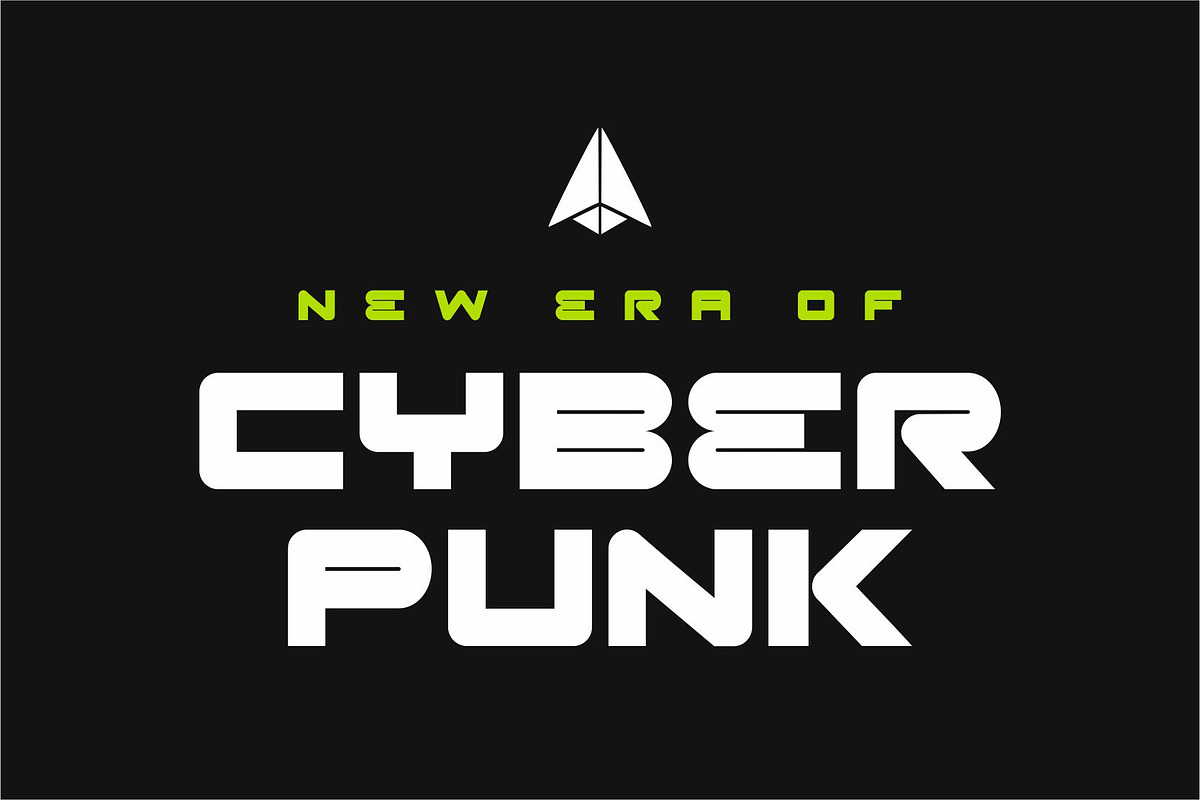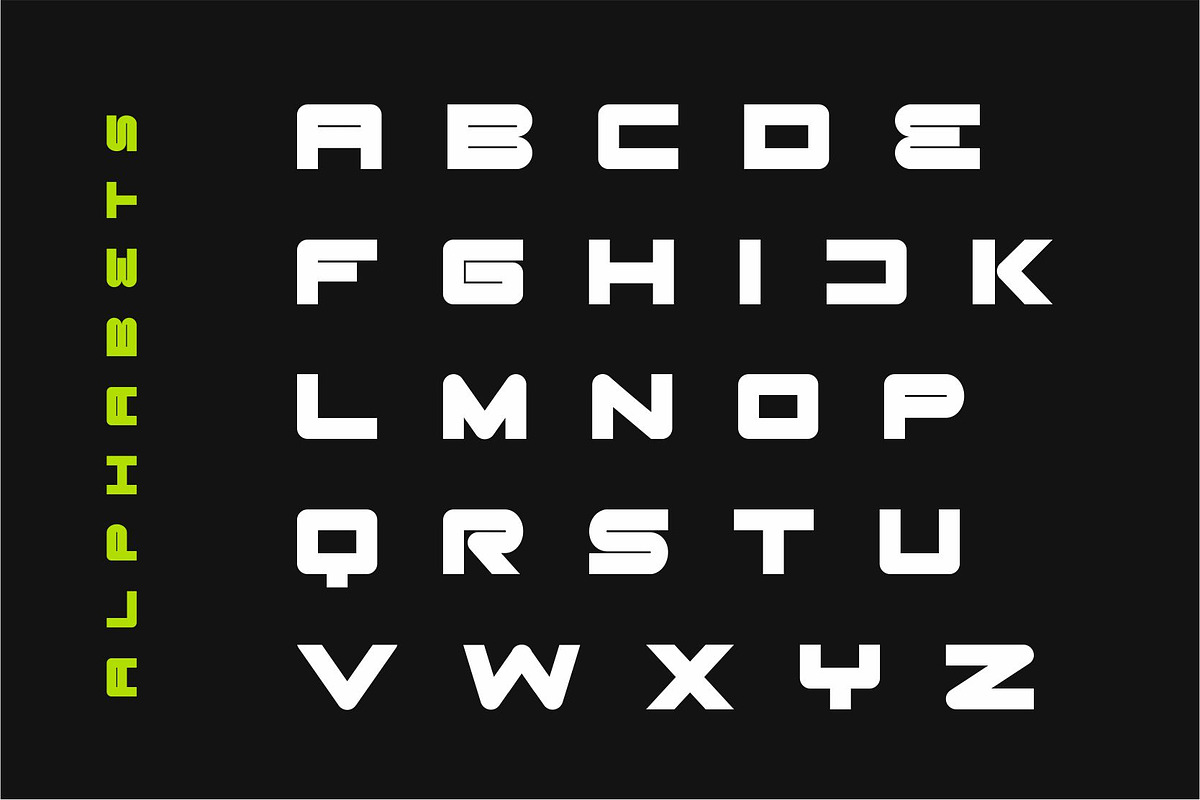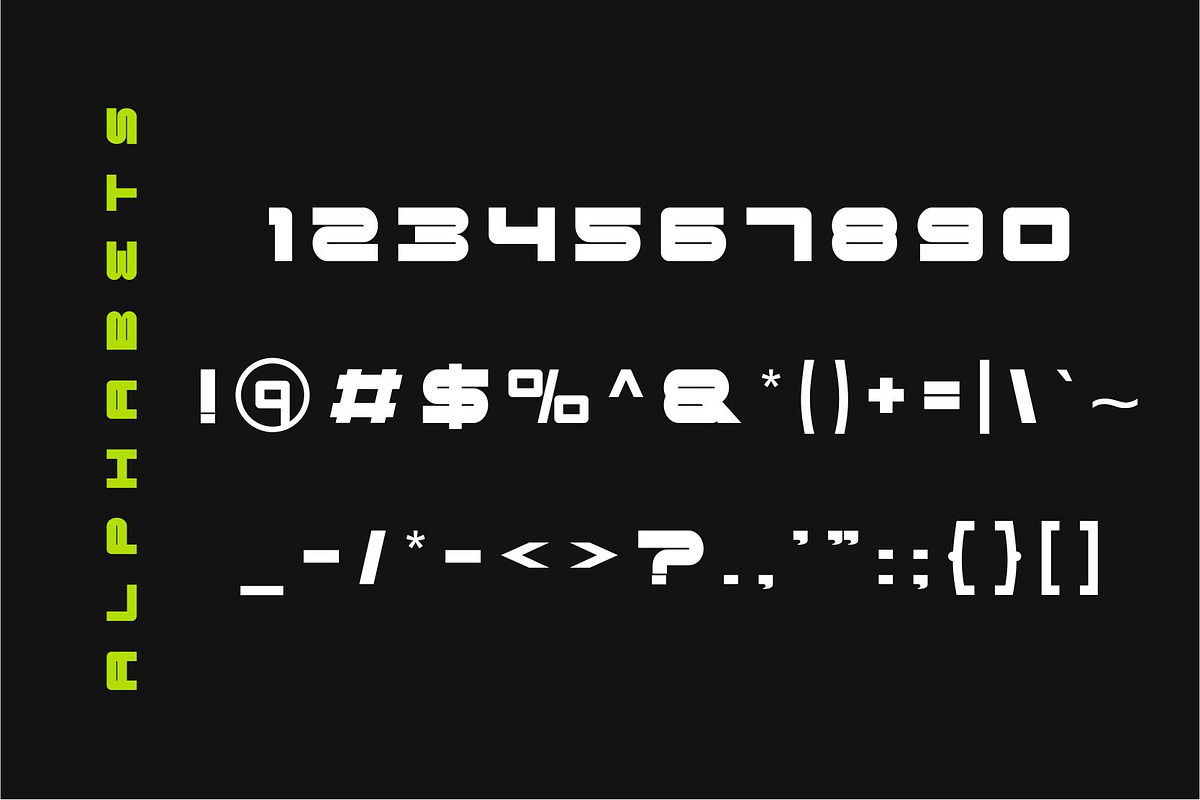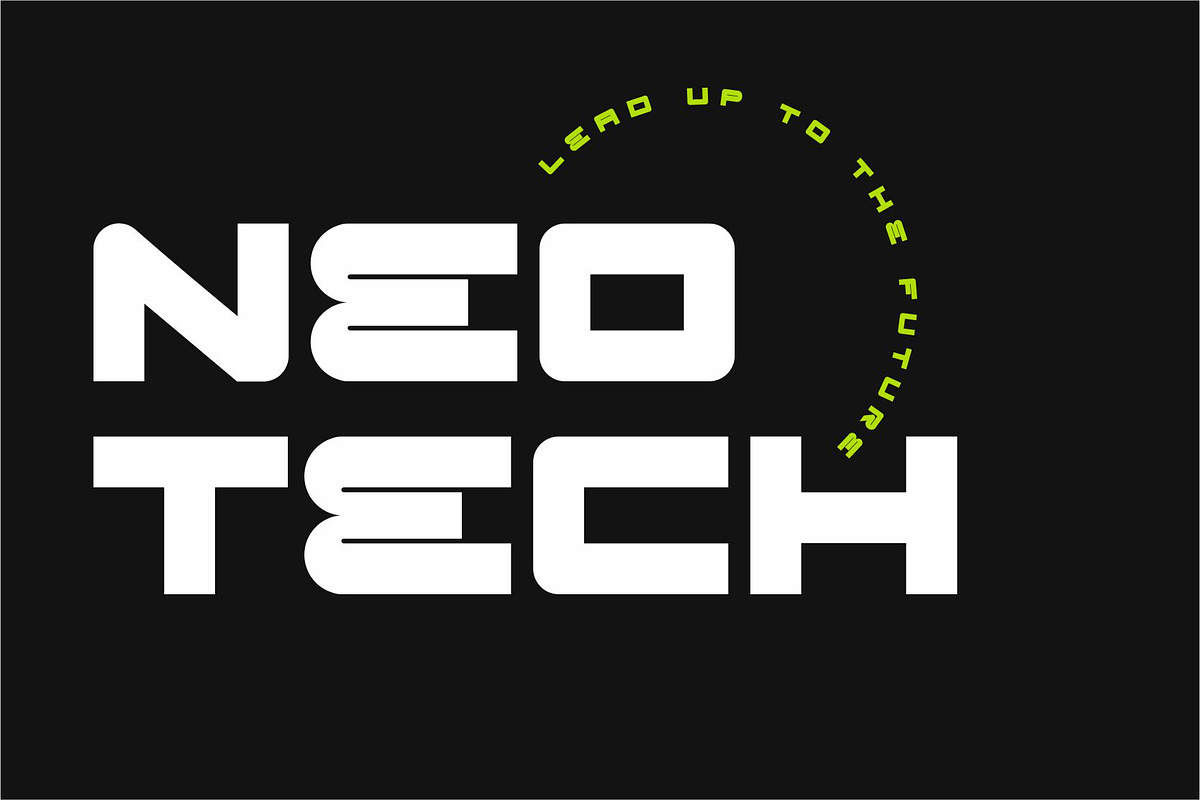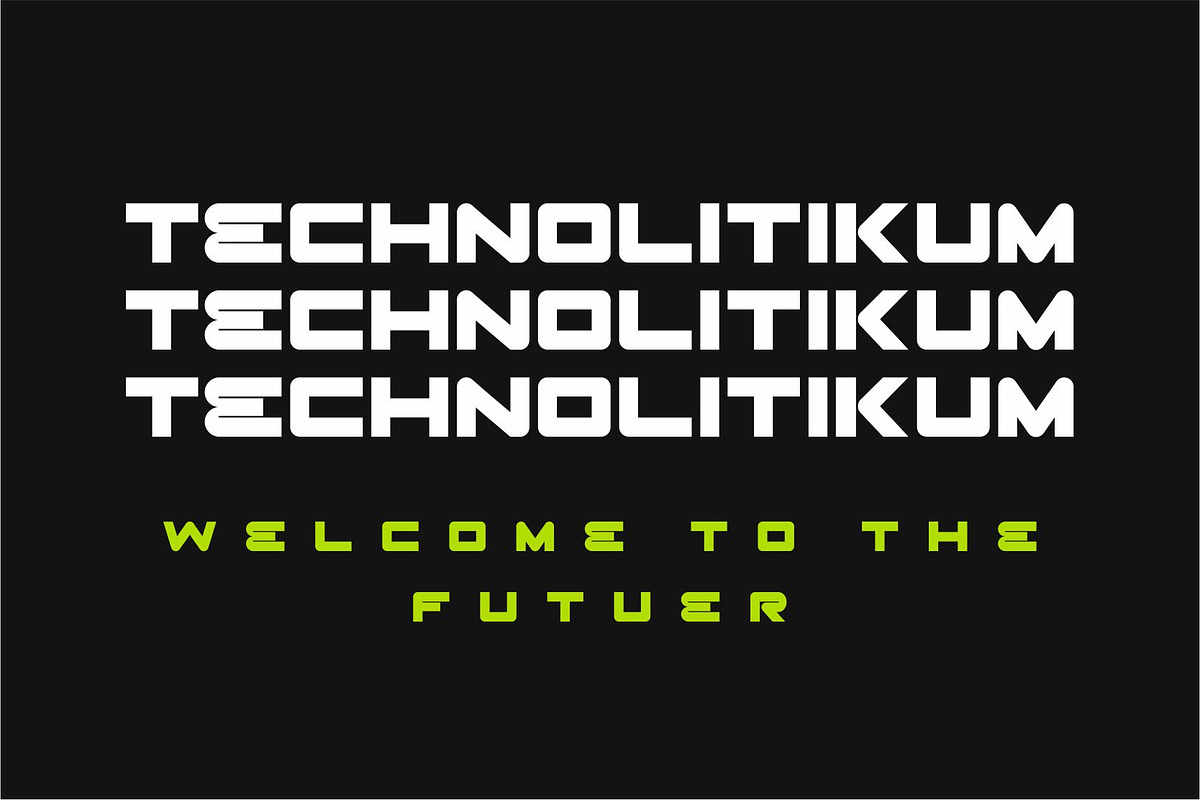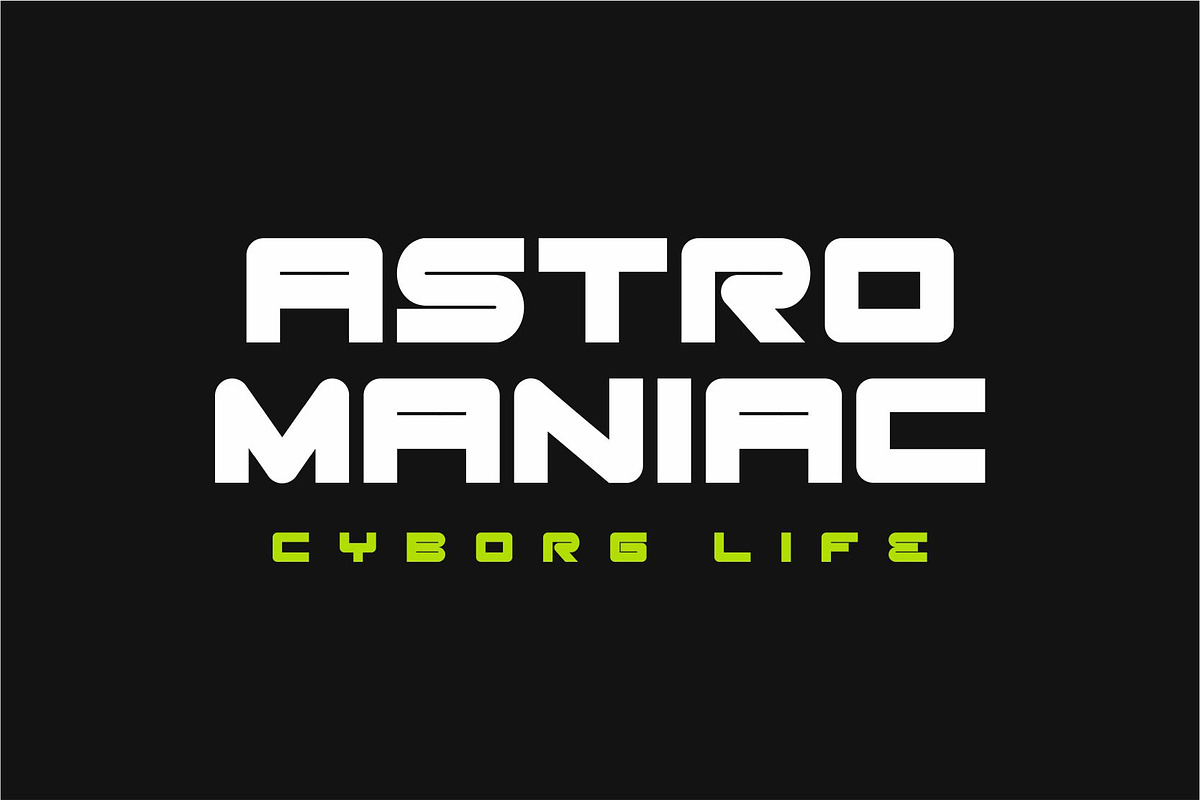
Reno | Bold Sans
Reno fonts includes uppercase letters, numerals, a large range of punctuation. Sans serif font with modern style. Created for poster, web design, branding, illustrations, badges and some other works.